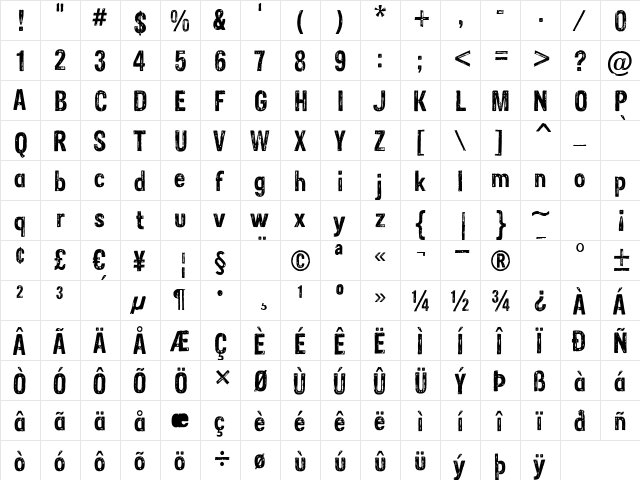
Sans Culottes Regular
Design Context for Sans Culottes Typeface
Sans Culottes takes a measured approach to typography — its balanced proportions and neutral character make it a reliable workhorse for both digital and print work.